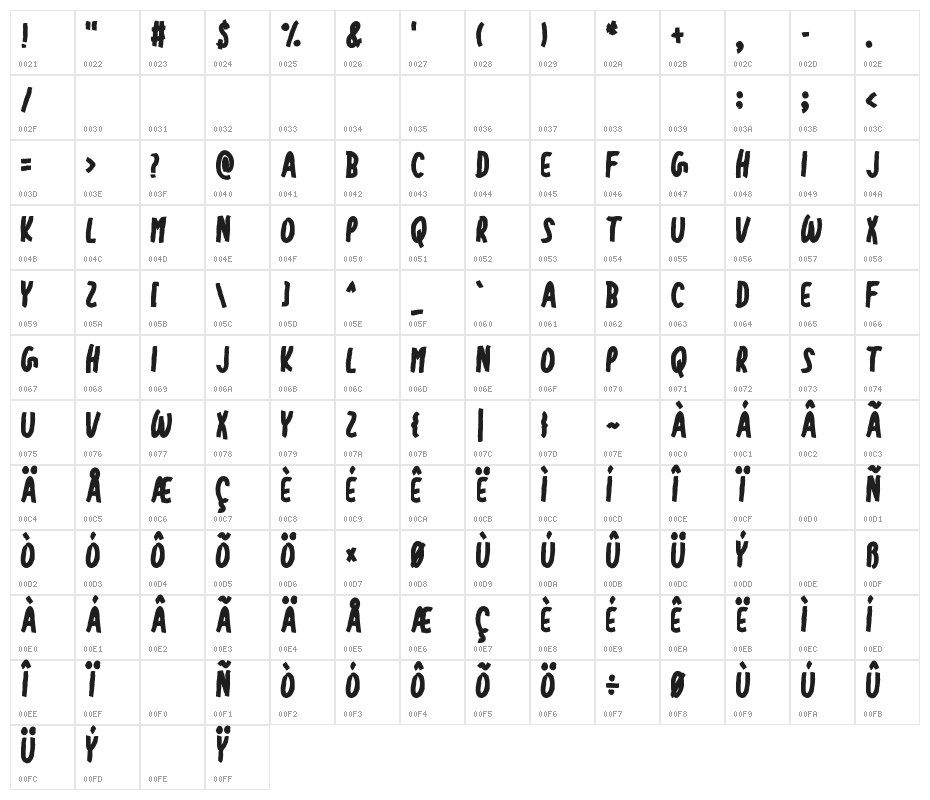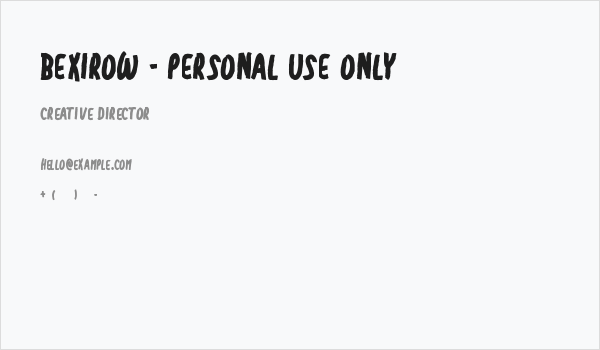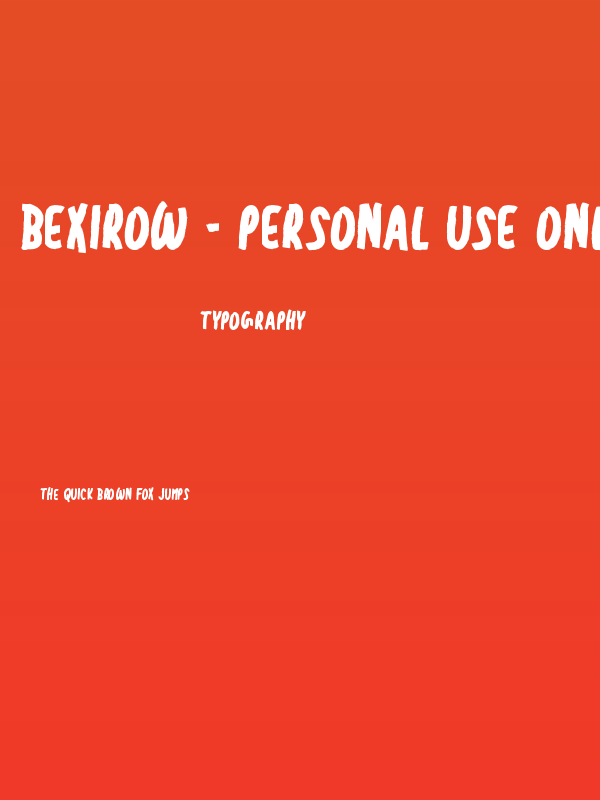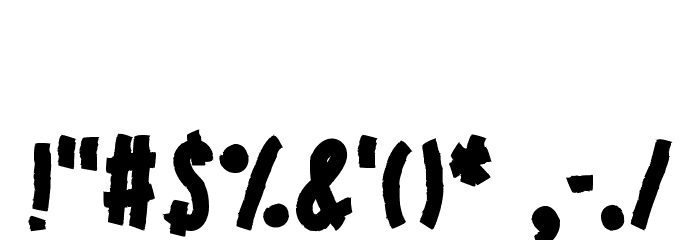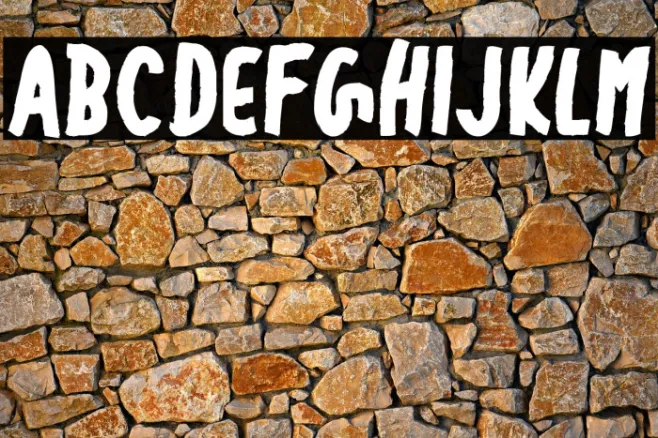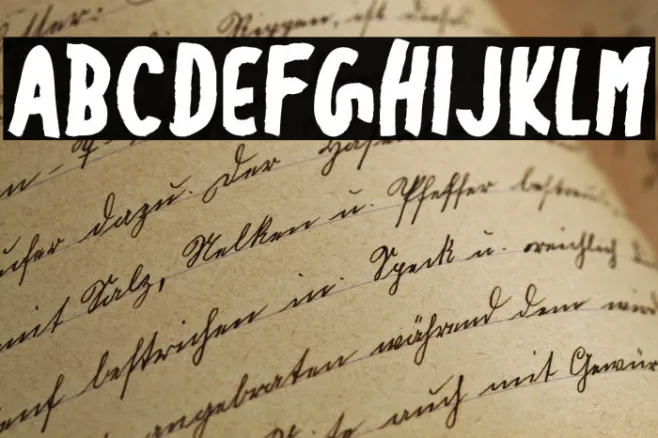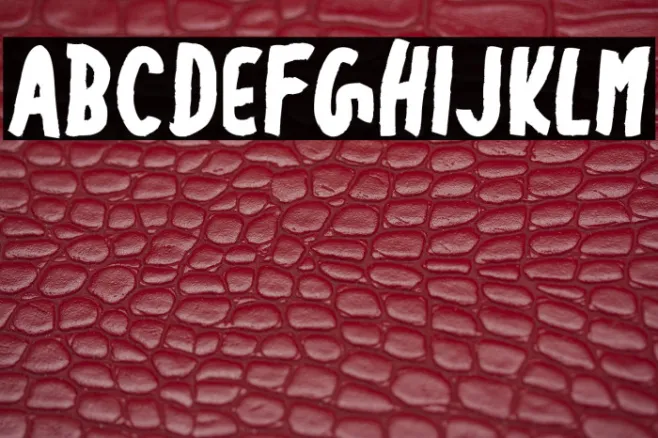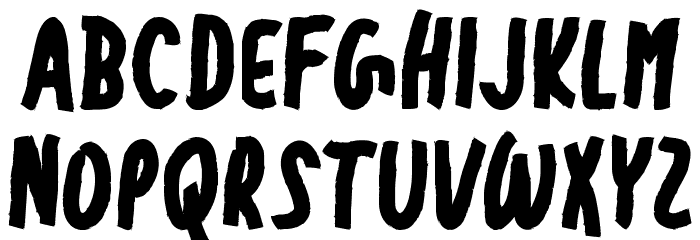
Bexirow - Personal Use Only Font
Bexirow - Personal Use Only Description
This font features a bold and expressive style with a hand-drawn appearance. The characters are slightly irregular, giving it a dynamic and energetic feel. The strokes are thick and uneven, contributing to a casual and artistic vibe. It captures attention with its playful and informal look, making it suitable for creative projects. The uppercase and lowercase letters maintain a consistent style, while the numbers and special characters complement the overall design. This font is ideal for projects that require a personal touch or a sense of spontaneity.
| Proposed Projects | Great for posters, greeting cards, social media graphics, and branding that requires a personal and artistic touch. |